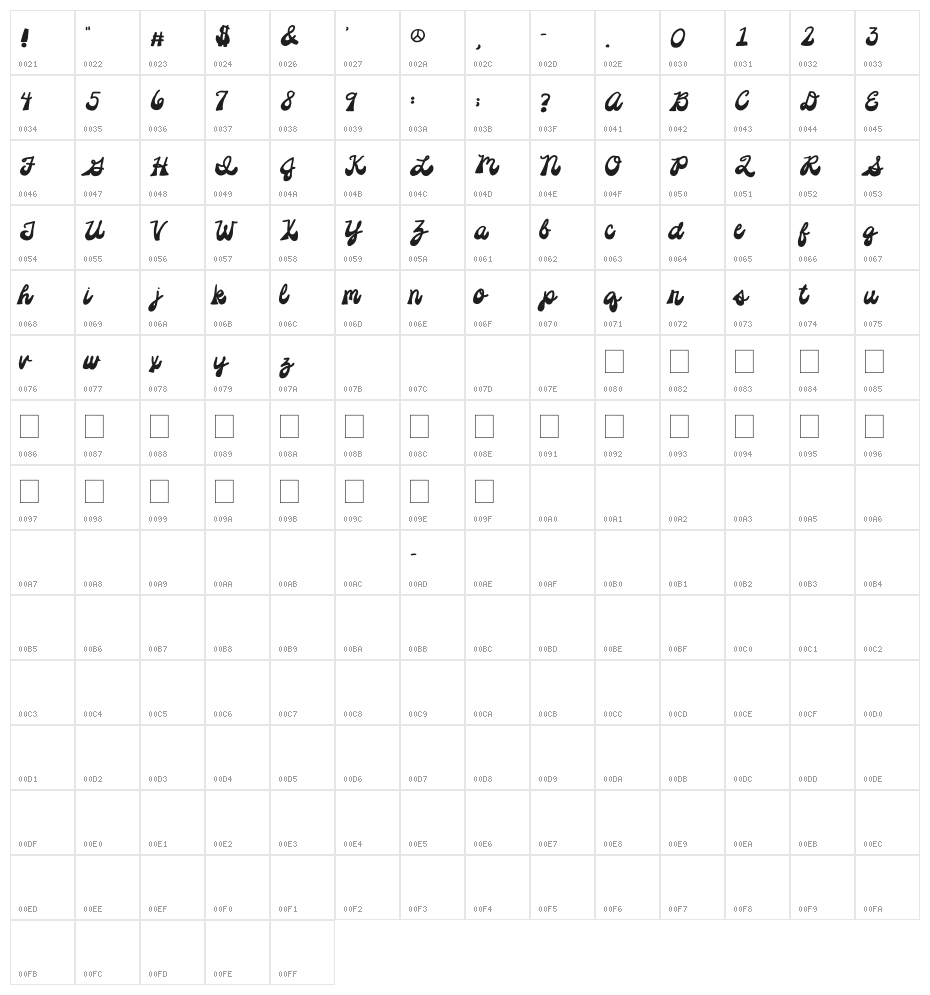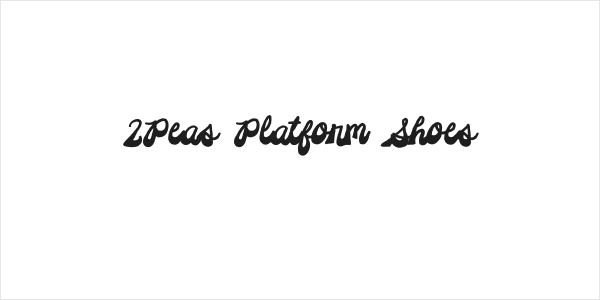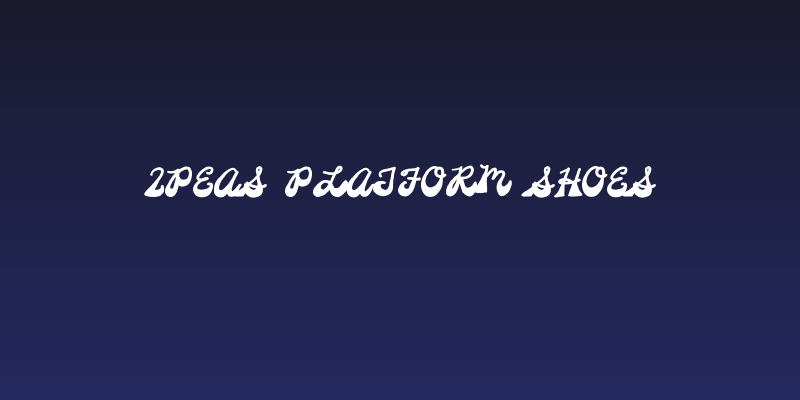
2Peas Platform Shoes Font
2Peas Platform Shoes Description
This font features a bold and expressive script style, characterized by its flowing, cursive letterforms. The strokes are thick and consistent, giving it a strong presence on the page. The uppercase letters are particularly ornate, with exaggerated loops and swirls that add a touch of elegance and flair. The lowercase letters maintain a cohesive look, with smooth connections between characters, enhancing the script's fluidity. Numbers and special characters are designed to match the overall style, ensuring a harmonious appearance across all text elements. This font is ideal for projects that require a personal, handwritten touch.
| Proposed Projects | Ideal for invitations, greeting cards, branding, and packaging design. |